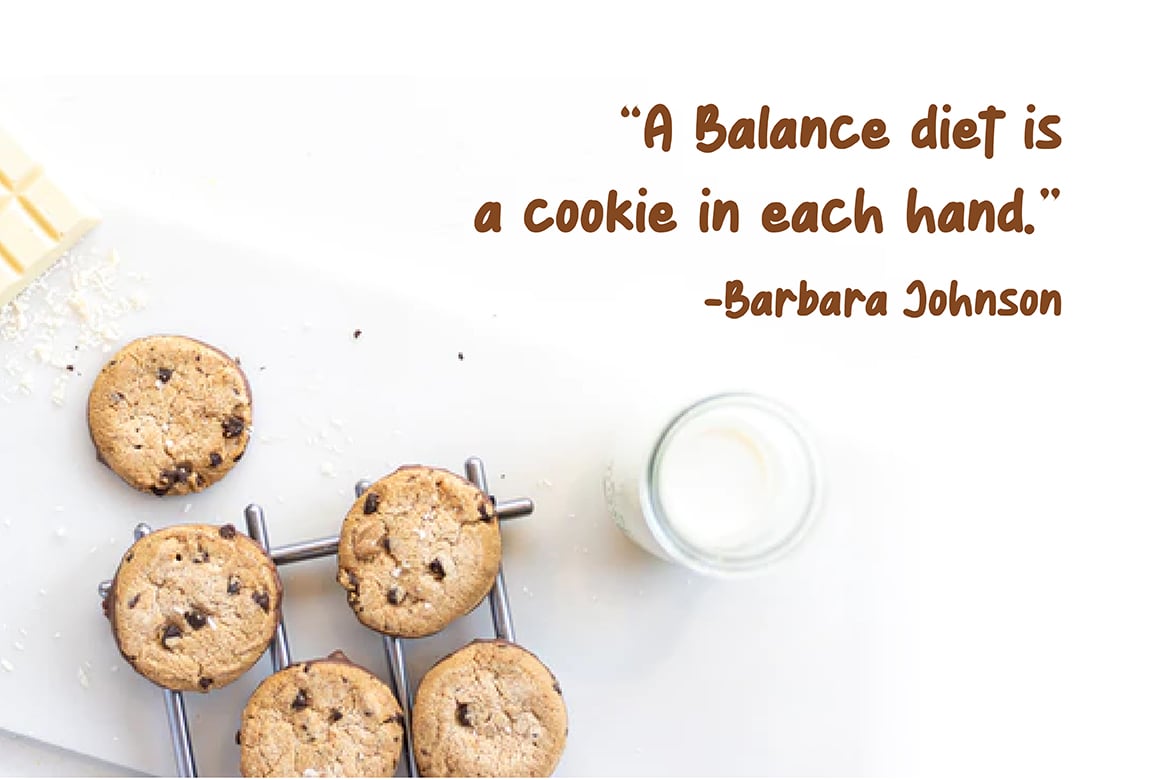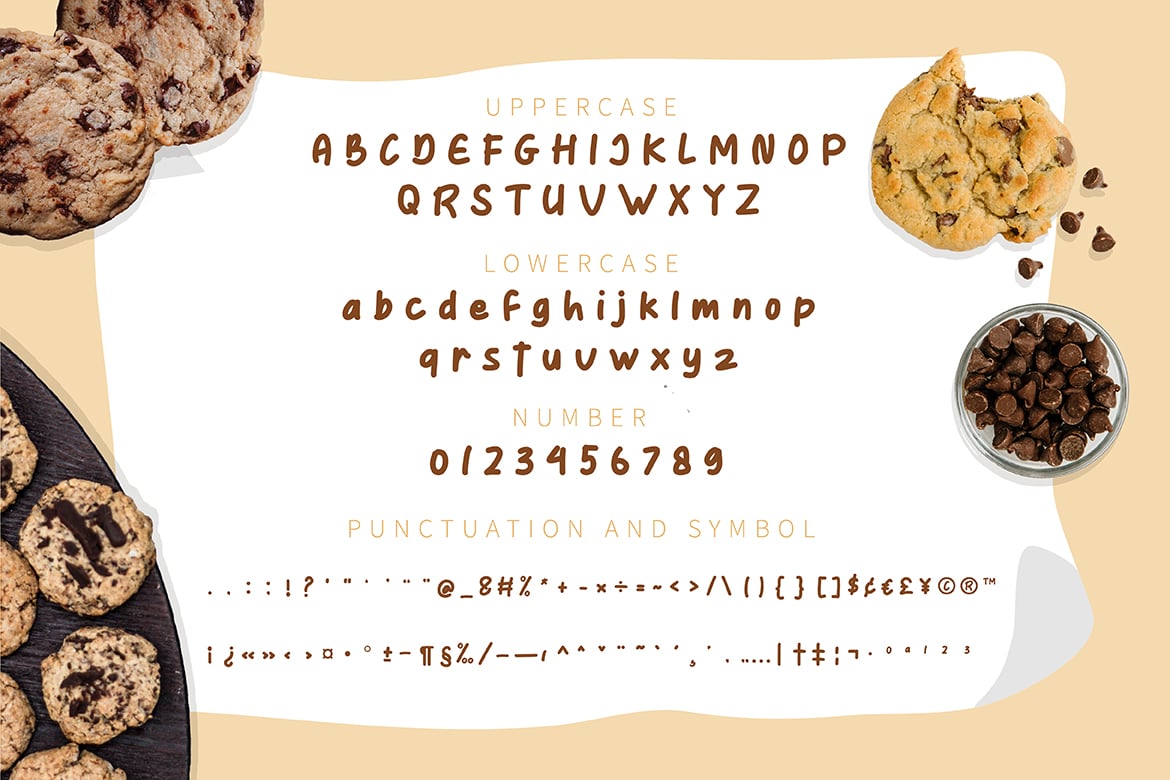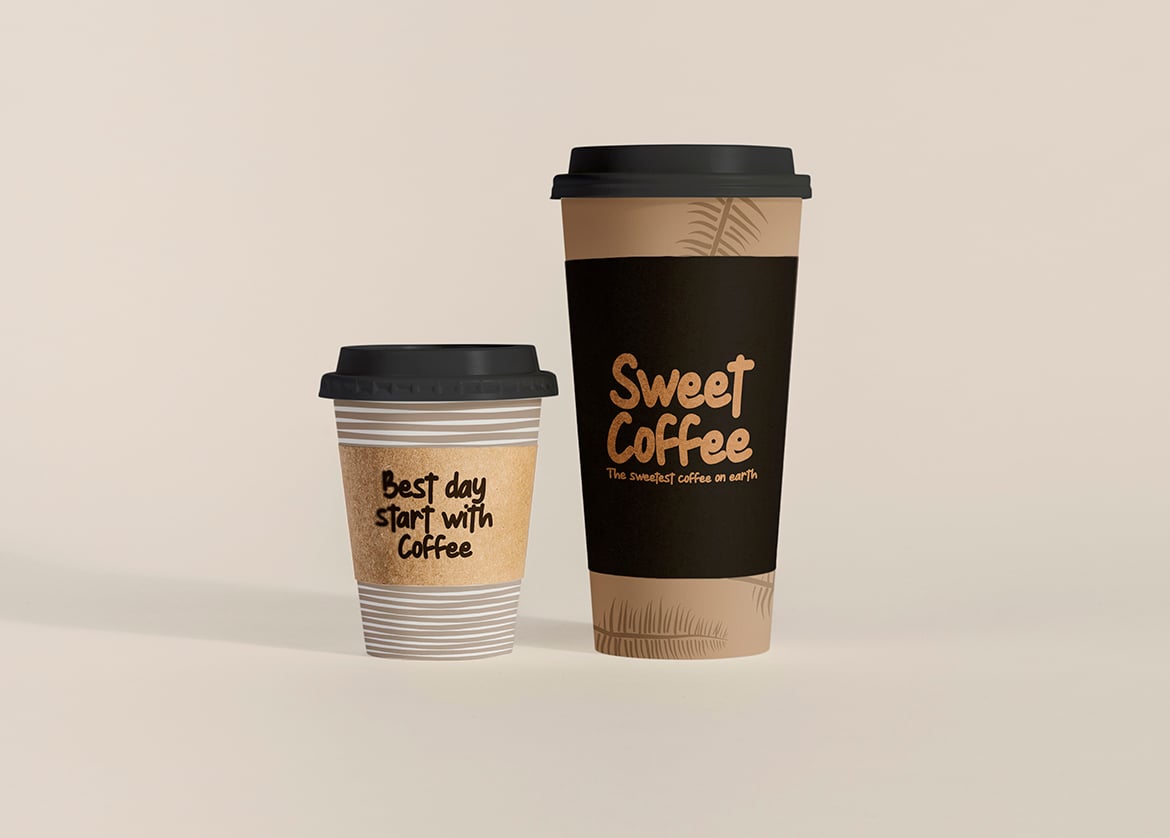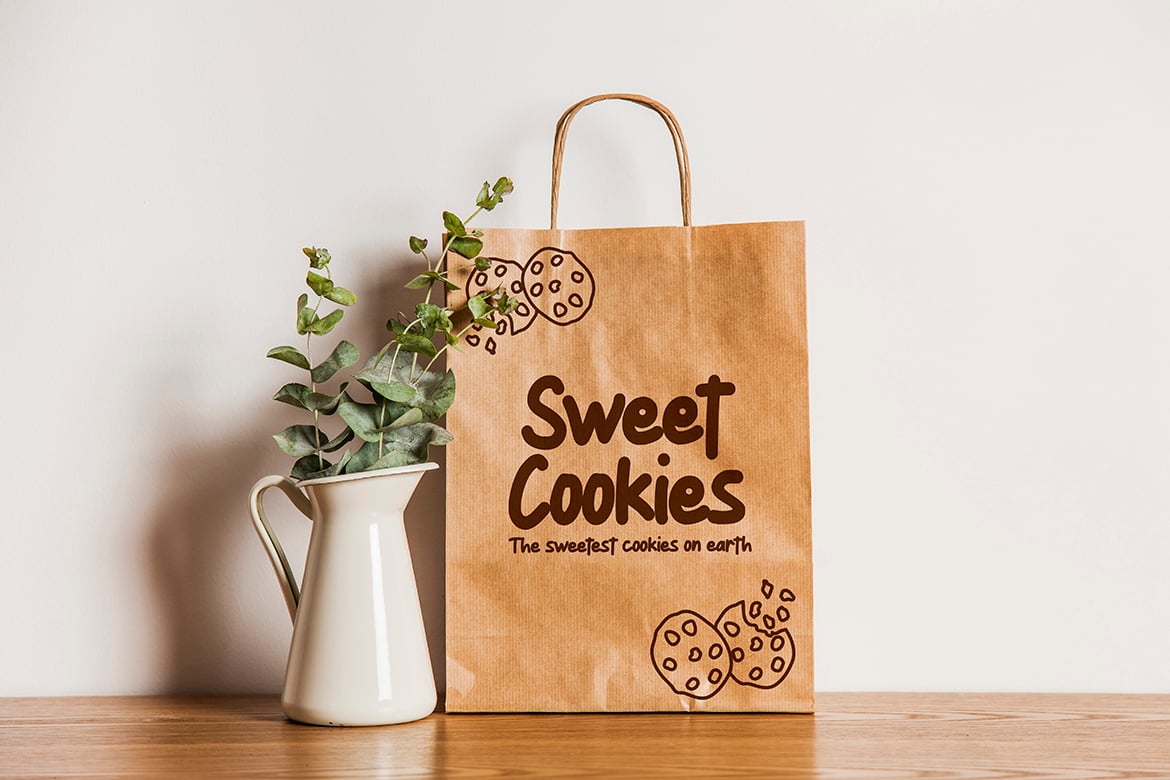
Punkiss – Cute Hand Drawn Font
Punkiss is a Cute Handwriting typeface, perfectly suitable for creating quotes, kids book, Food, etc. such as logos, titles, and magazines and more.